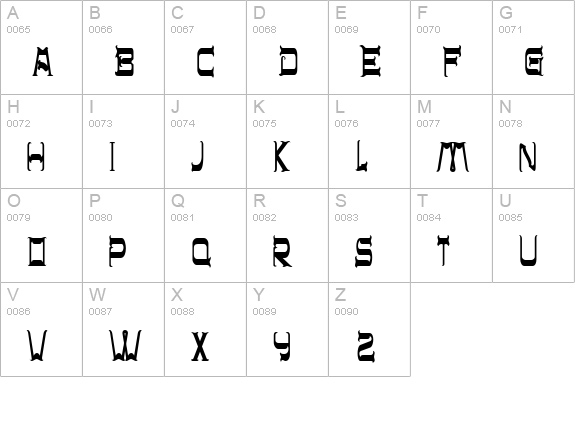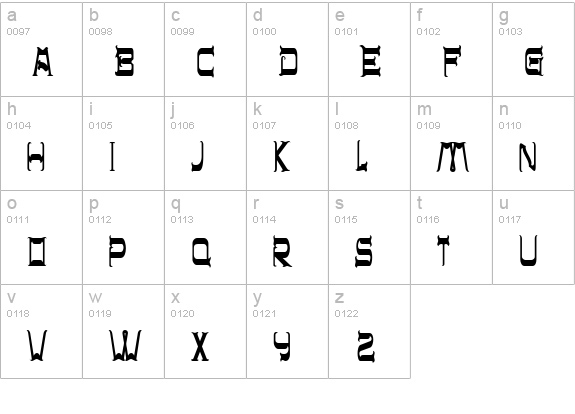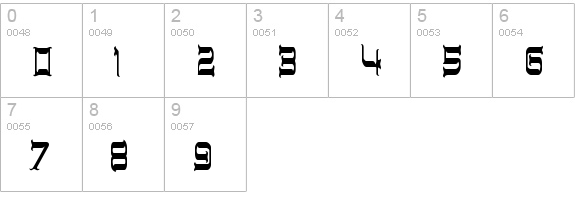
CHR32 Font Details
CHR32 font is a modern and stylish typeface that exudes a sense of sophistication and elegance. With its clean lines and sleek design, this font is perfect for a wide range of design projects, from branding to editorial design. The versatility of CHR32 font makes it a must-have for any designer looking to elevate their work to the next level. Best of all, CHR32 font is available for free download at FontsMarket.com. This means that you can easily access this beautiful font and use it in your projects without any cost. Don't miss out on the opportunity to enhance your designs with the timeless appeal of CHR32 font. Download it today and let your creativity soar.